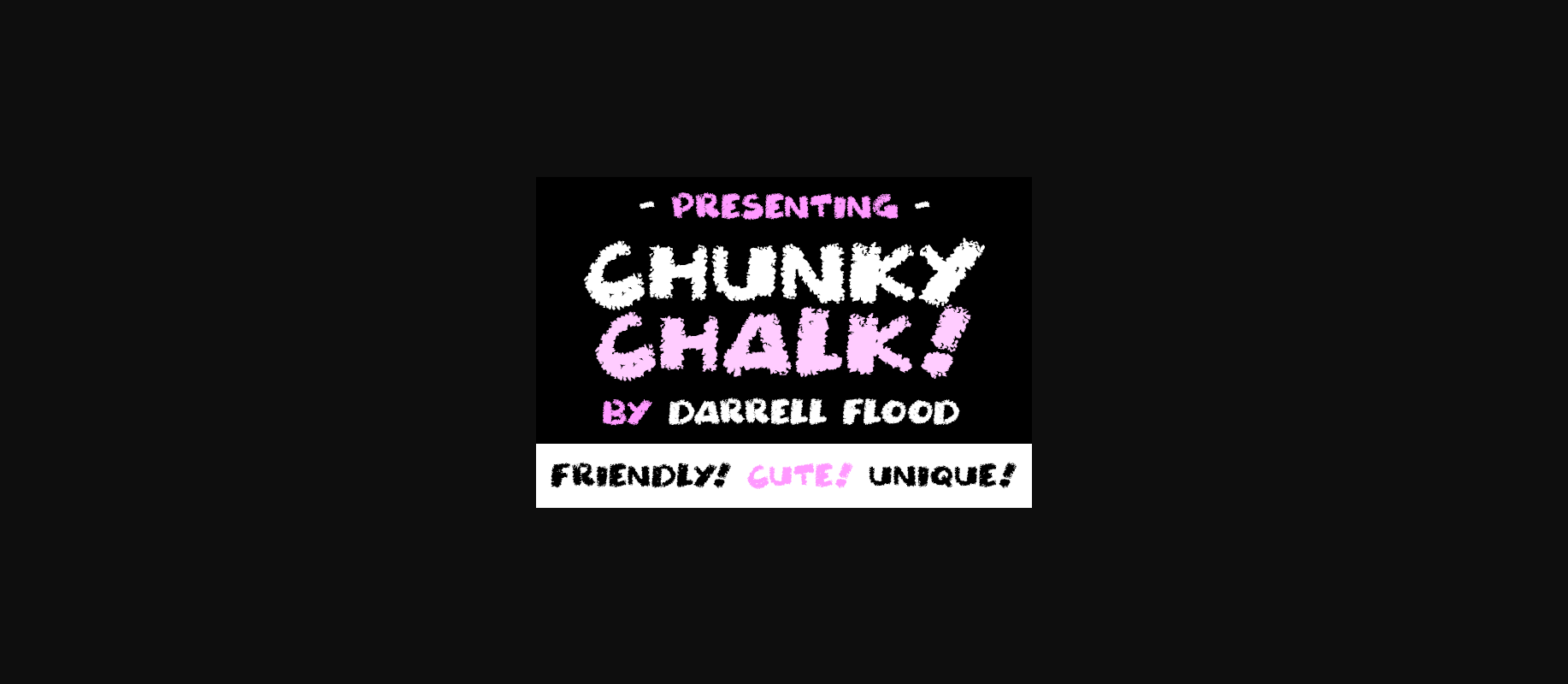
HomeDecorative FontsChunky Chalk Font Decorative Fonts Chunky Chalk Font FacebookXPinterestWhatsApp 1 of 1 About Chunky Chalk Font A fun, fat font in a cute chalk-like style! Perfect for classrooms and cartoon themes! DOWNLOAD NOW People also explored Dibacheh Font Qiduwy Font Daisy Font Rockabey Font Kamelia Font Rivets Trixie Script – 3 Weights Hilarious Font Browrie Font 332 0 TagsChunky Chalk Font Previous articleSinbad the Sailor FontNext articleChalkabout Font LEAVE A REPLY Cancel reply Comment: Please enter your comment! Name:* Please enter your name here Email:* You have entered an incorrect email address! Please enter your email address here Website: Save my name, email, and website in this browser for the next time I comment. Personal Use Free Helsinki Personal Use Free Read more about this font Silver Bullet Personal Use Free Read more about this font Austin Personal Use Free Read more about this font Little Things Duo Personal Use Free Read more about this font BLOG Modern Sans-Serif Fonts That Brands Love in 2025 In 2025, modern sans-serif fonts remain a top choice for brands looking to project clarity, professionalism, and... The 10 Best Handwriting Fonts to Add Personality to Your Designs Where to Buy American Fonts Online in 2024 Free vs Paid Fonts: Why Investing in Premium Fonts Is Worth It